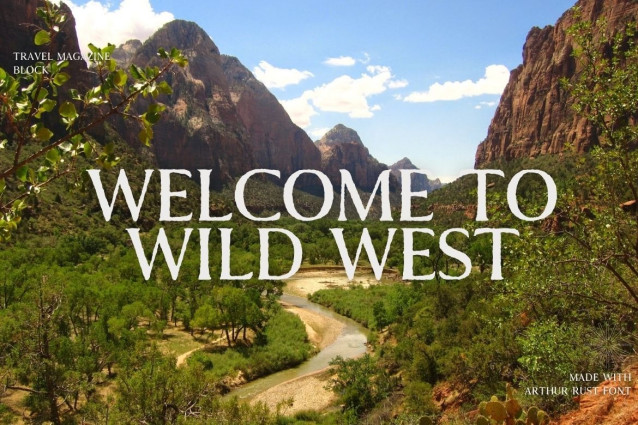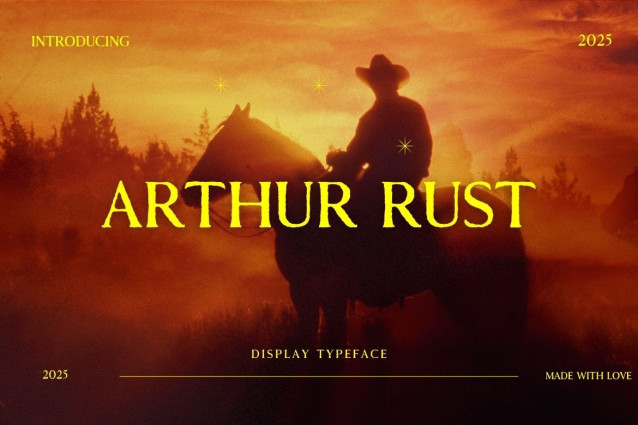
Arthur Rust Font
Arthur Rust Font, a display serif font that whispers tales of dusty trails and golden sunsets. Launched in 2025, this typeface is more than just a font—it’s a journey back to the rugged charm of the frontier, reimagined for today’s creative pioneers. Crafted with love by CreativeTacos, Arthur Rust dances between vintage elegance and modern grit. Its sweeping serifs and bold letterforms bring an authentic Western vibe to every project, whether you’re designing a rustic poster, a saloon-inspired logo, or a heartfelt invitation. This font doesn’t just speak—it sings the song of the Old West, making your designs unforgettable.